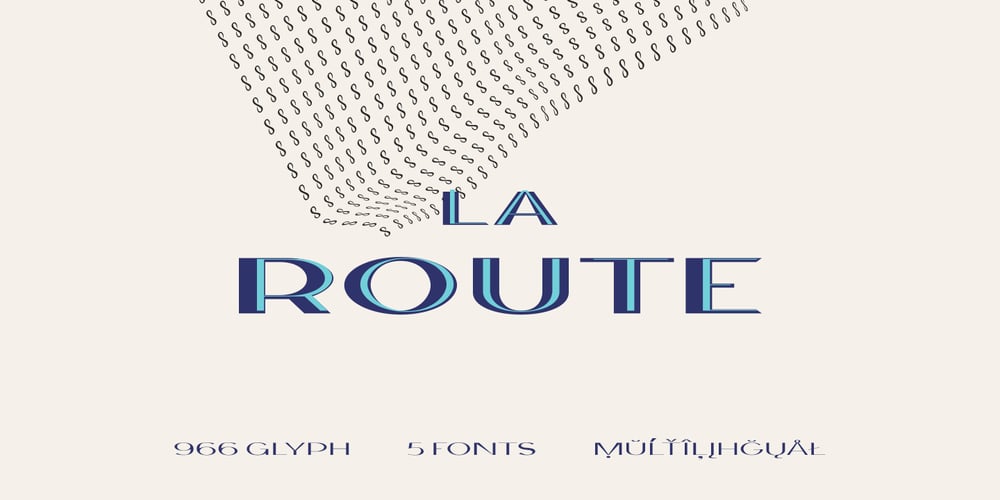
La Route Font Family was designed by Tural Aliyev and published by Tural Alisoy. La Route contains 5 styles and family package options. La Route is inspired by my other font Modern Times. La Route works great in any branding, films, magazines, header, logos, badge, packaging, headline, poster, t-shirt/apparel. La Route gives you options to explore a whole host of applications and give a real modern feel to any project. 965 glyph, 100+ Languages Set. Multilingual support: Latin basic, Latin Extended, Cyrillic, Greek, Georgian, Central Europe, Turkish, Baltic, Romanian, Euro, West European diacritics Please test your alphabet. If you have any issues please let me know through email turalalisoy@gmail.com.